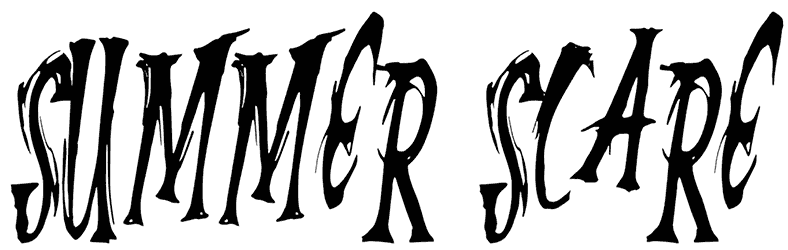
Summer Scare Font
Summer Scare is a powerful tool to make viewers feel the fear of a zombie approaching. The dynamic design of the letters in this horror font has made them animated and can implement Halloween art themes in a new way.
The sharp and razor-like edges in this hardcore font and the fading mode are very successful in creating a scary atmosphere that completely covers the absence of small letters.